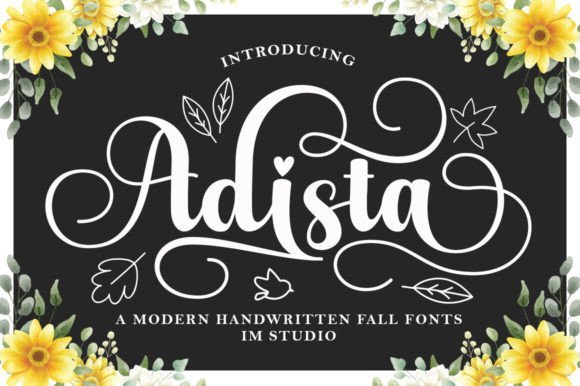
Introduction to Adista Font
Adista is a bouncy and bold script calligraphy font with an elegant and modern touch.
Great for use on Halloween, Fall, wedding projects, invitations, stickers, sublimation, cards, birthdays, t-shirt designs, farmhouse designs and more .